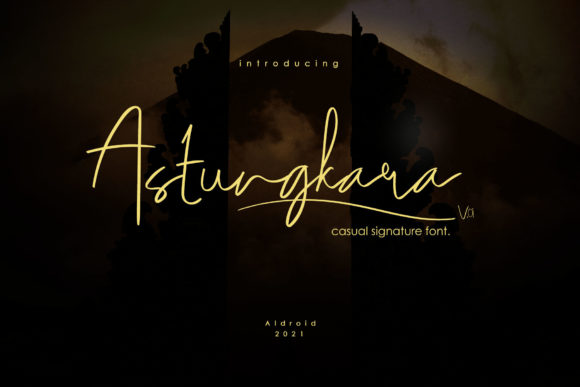
Immerse yourself in the artistry of Astungkara, a script font that captivates with its enchanting flow. Its graceful curves and elegant strokes bring a touch of sophistication to any project. Whether you're a designer seeking to leave a lasting impression or a creative soul yearning for a font that speaks to your heart, Astungkara is your perfect companion.
Unleash your creativity with Astungkara's versatility. Its charming personality shines in logos and branding, adding a touch of warmth and uniqueness to your visual identity. Craft stunning invitations that exude elegance and charm, or create captivating posters and flyers that command attention. Let Astungkara elevate your social media posts, bringing your words to life with a touch of artistry.
Step into a world of endless possibilities with Astungkara. Its flowing script adds a touch of whimsy to wedding designs, transforming your special day into a magical affair. Express your love and creativity in enchanting ways, crafting heartfelt cards and personalized gifts that leave a lasting impression.
With Astungkara, the ordinary becomes extraordinary. Its effortless style brings a touch of magic to everyday projects, transforming them into works of art. Create stunning digital art, eye-catching blog designs, and captivating social media graphics that captivate your audience. Let Astungkara be your creative muse, inspiring you to explore new horizons and create designs that resonate with your soul.